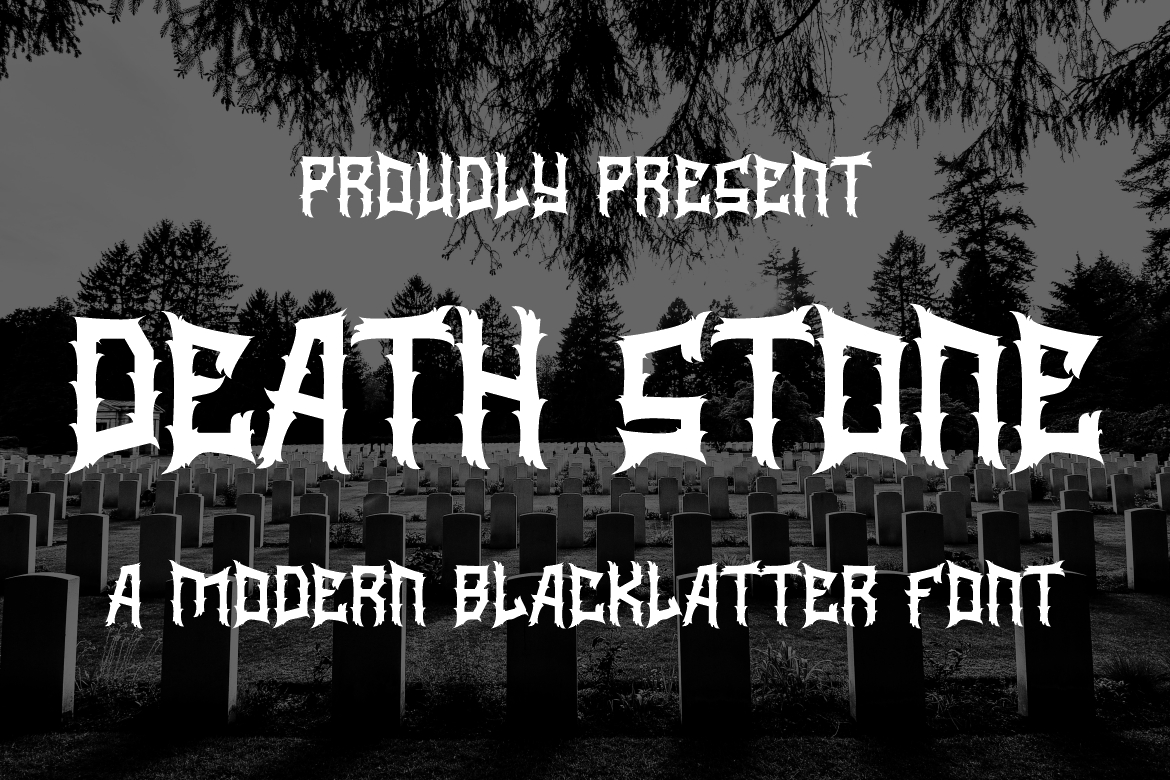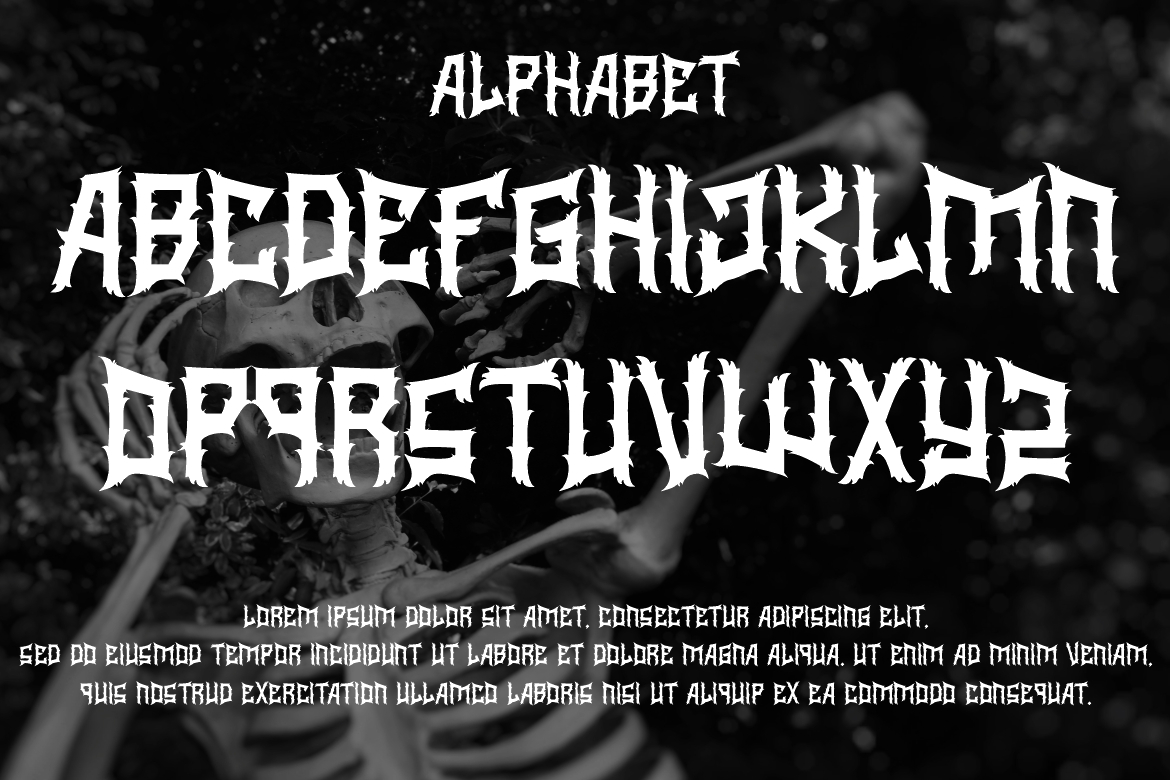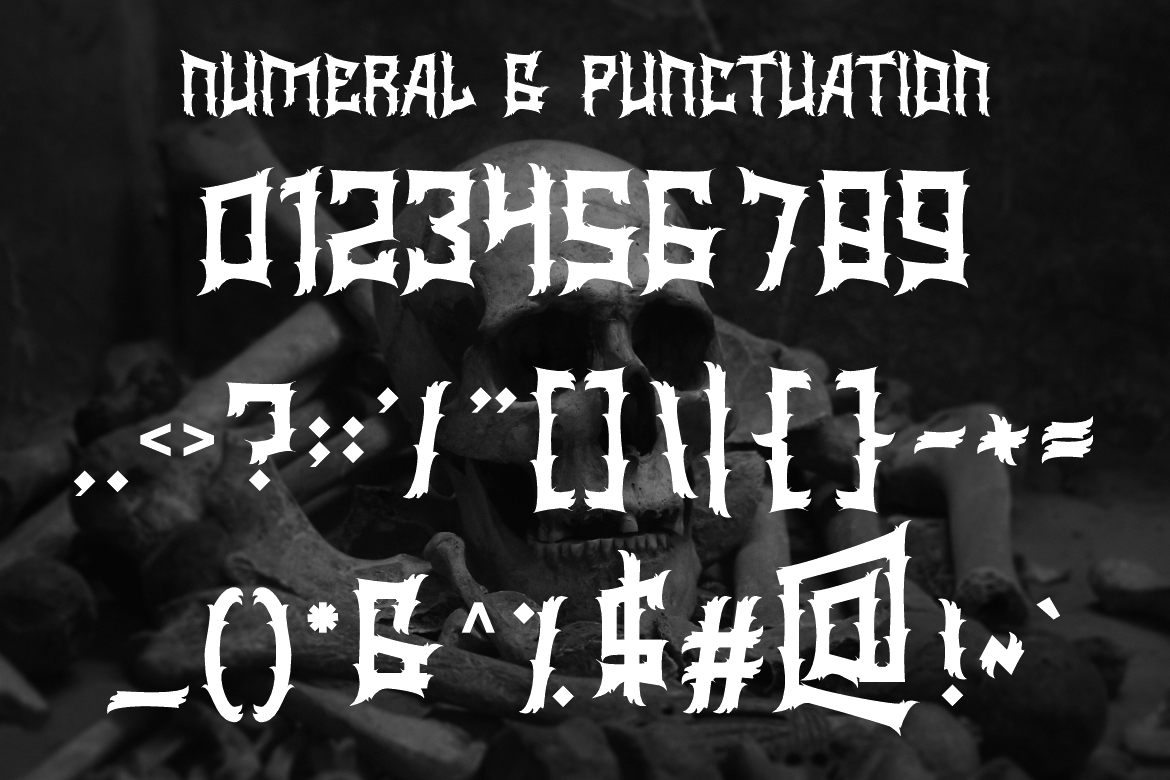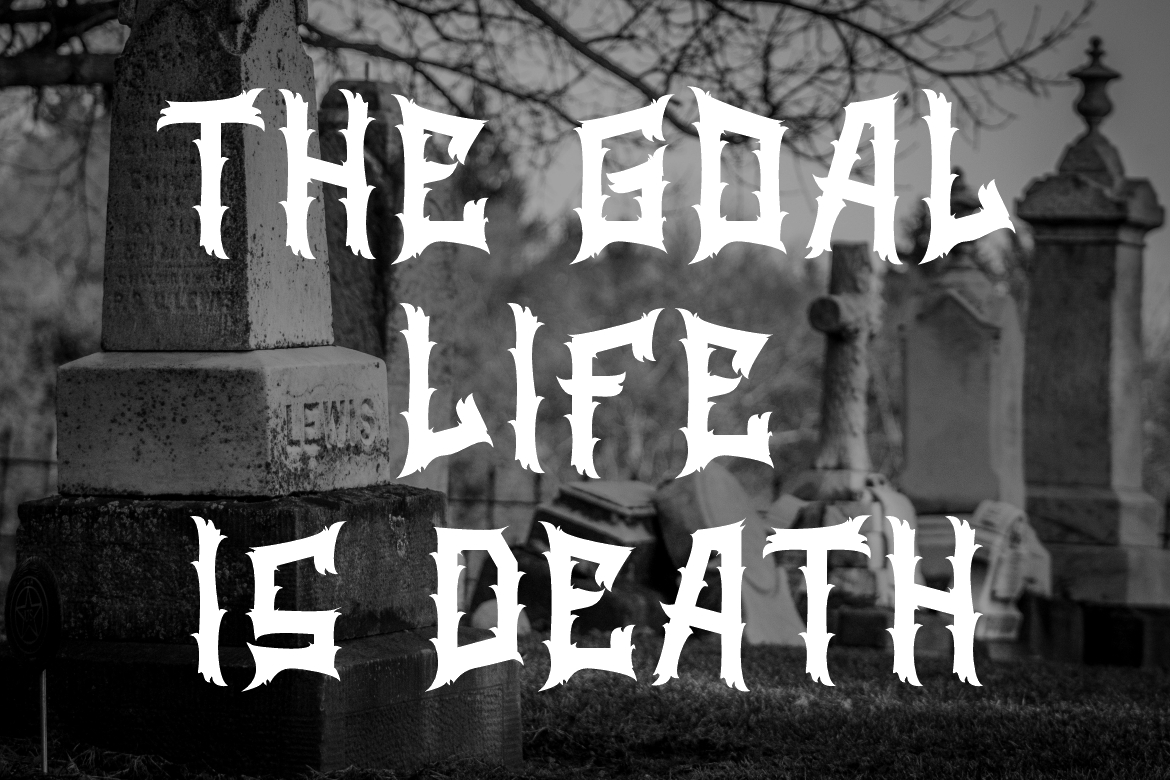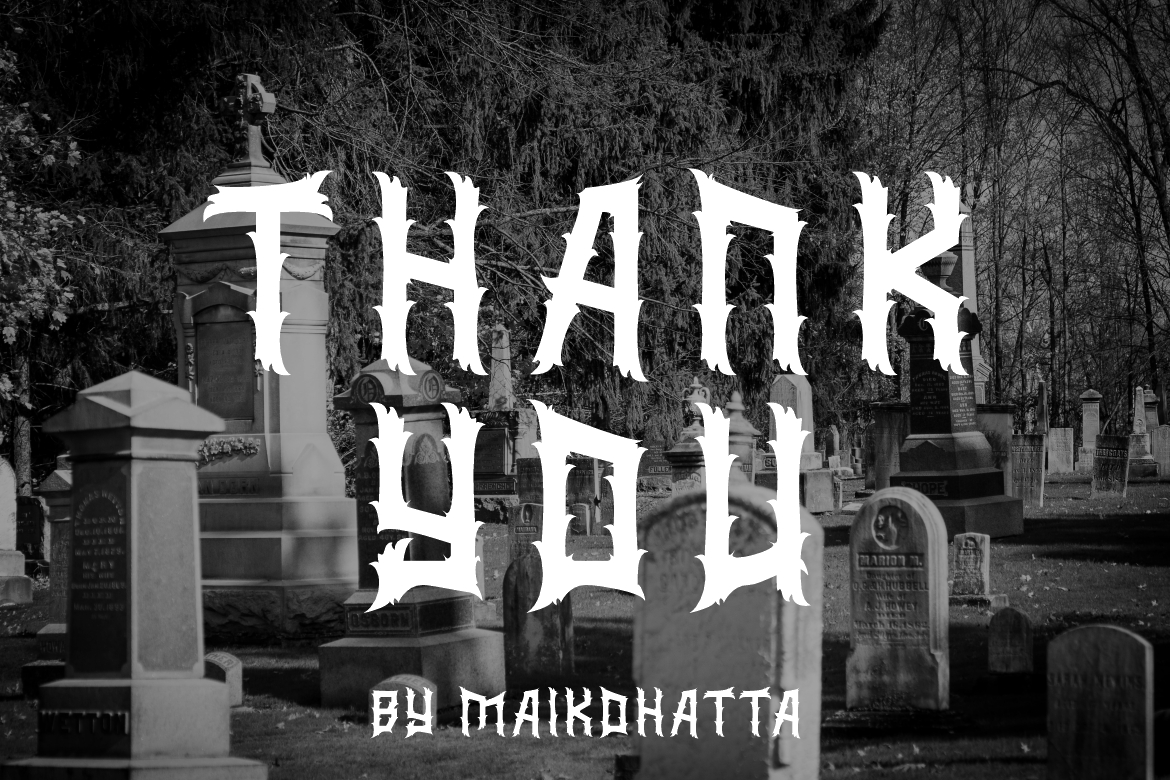
Death Stone Font
About Death Stone Font
**DEATH STONE FONT** Modern Blackletter Font
**DEATH STONE FONT** a distinct, highly detailed, and Horror Metal font. It would make a great choice for exquisite retro-urban designs, tattoo business branding, logos, vintage designs, and more.